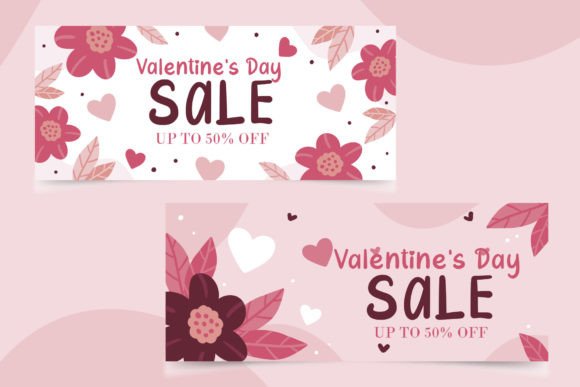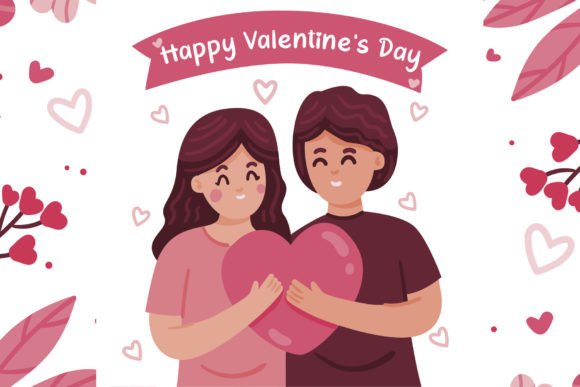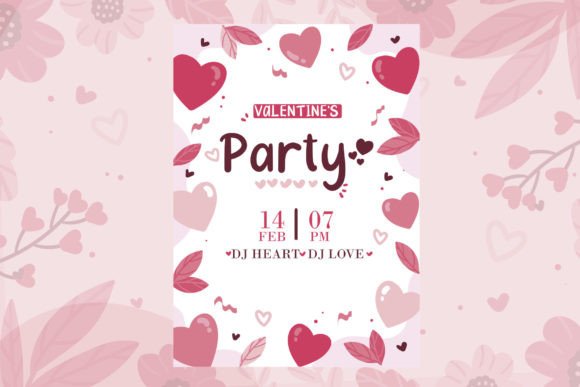
Introduction to Feilla Font
Feilla is a cute valentine’s handwritten font featuring lovely ornaments.
This font is perfect for romantic-themed designs, especially when combined with pink or bright colors It is PUA encoded, which means you can access all of the glyphs and swashes with ease.
Why Choose Feilla Font?